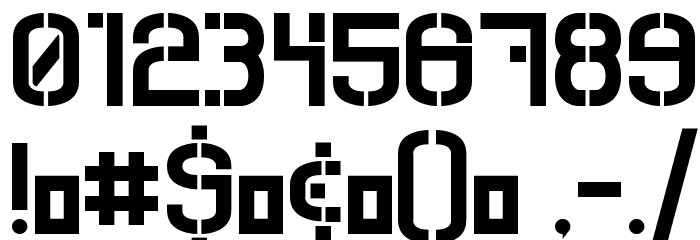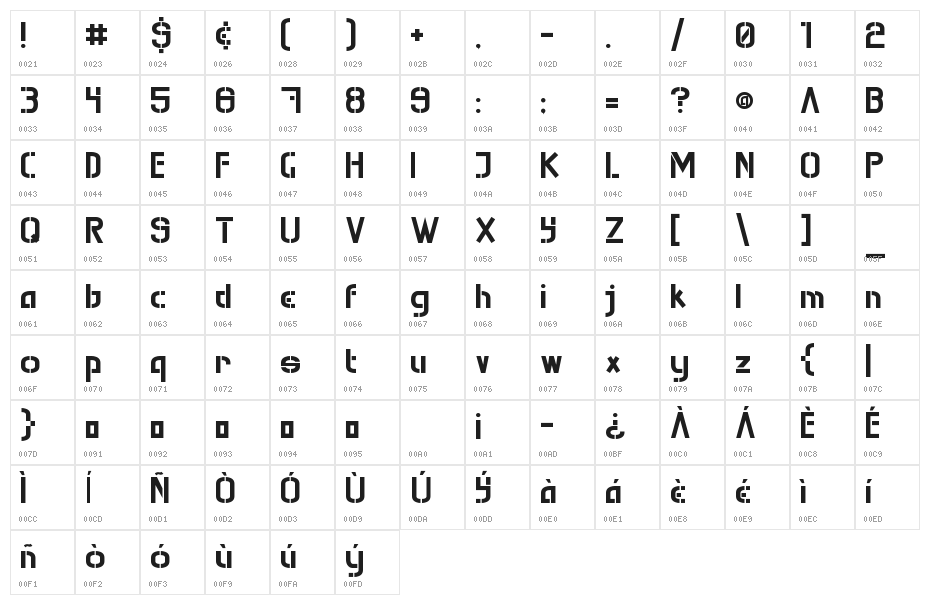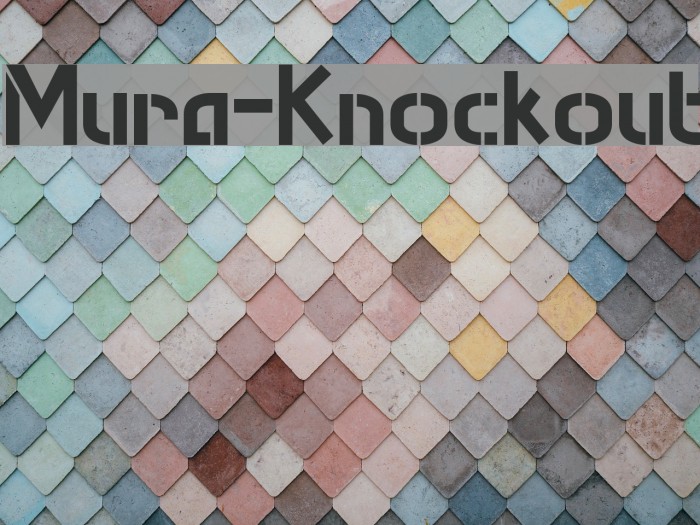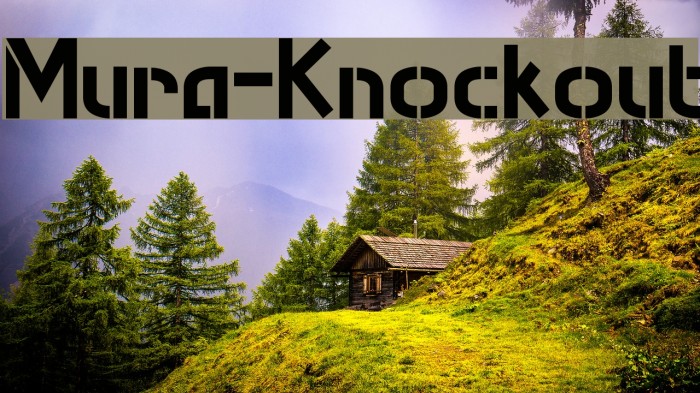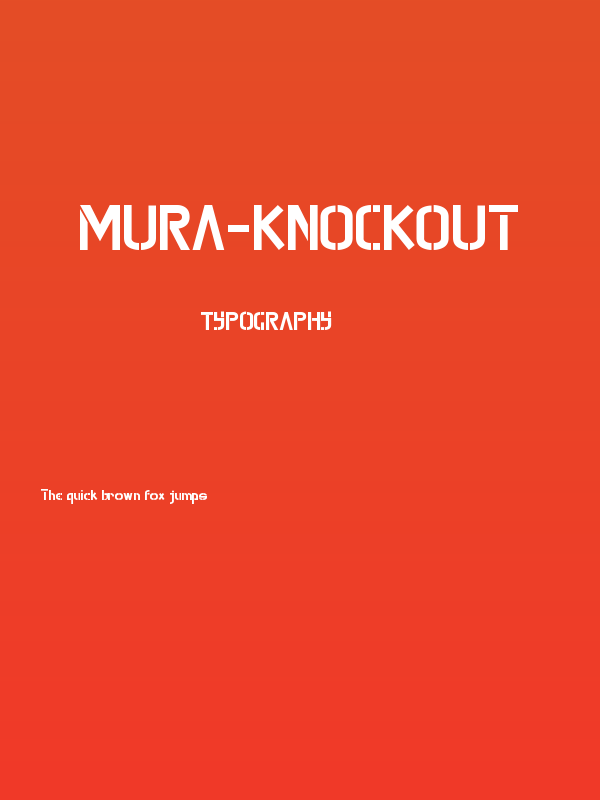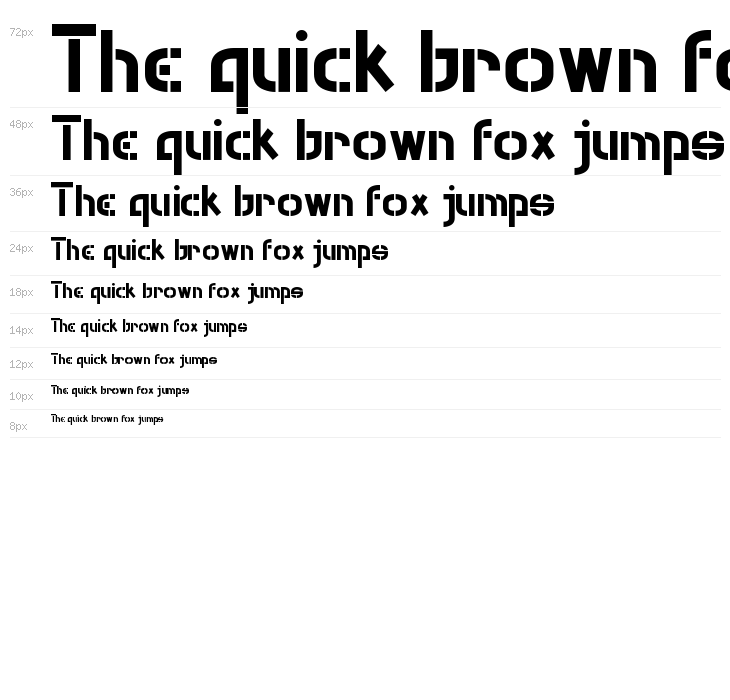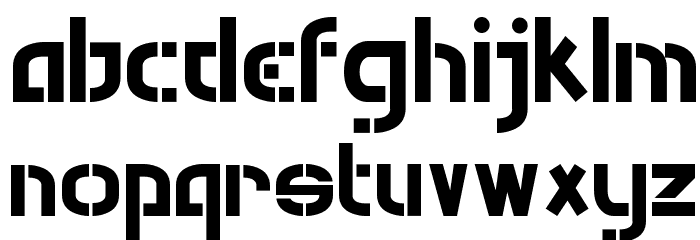
Mura-Knockout Font
Mura-Knockout Description
This font features a bold and geometric design with a futuristic flair. The characters are constructed with a combination of solid and segmented strokes, creating a unique visual effect. The uppercase letters exhibit a strong presence with their angular and block-like forms, while the lowercase letters maintain a consistent style with slightly softer curves. The numerals and special characters follow the same design principles, ensuring uniformity across the typeface. This font's distinctive style makes it ideal for projects that require a modern and edgy look.
| Proposed Projects | Ideal for branding, posters, album covers, and digital media that require a modern and striking appearance. |